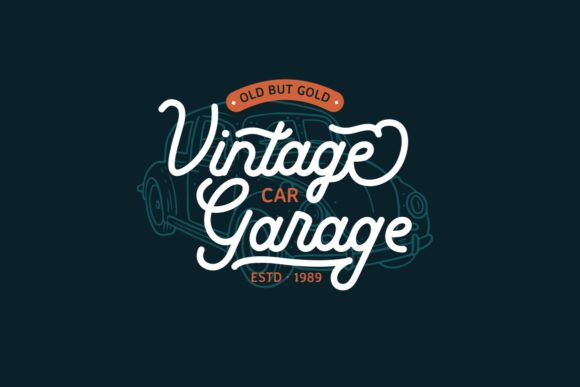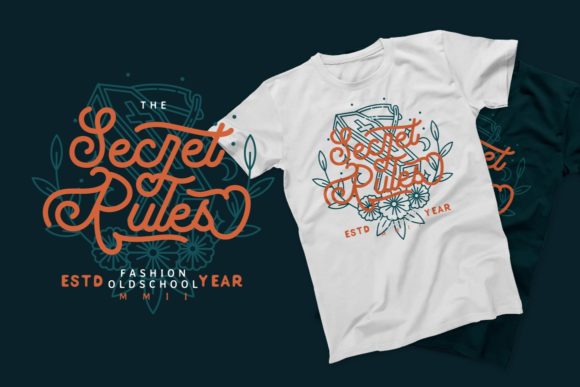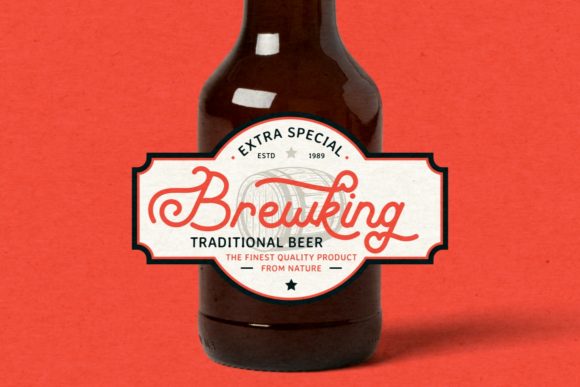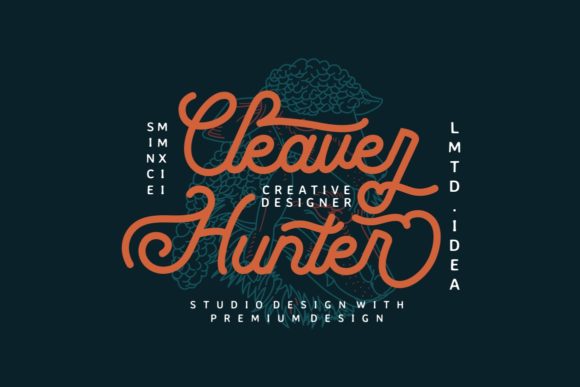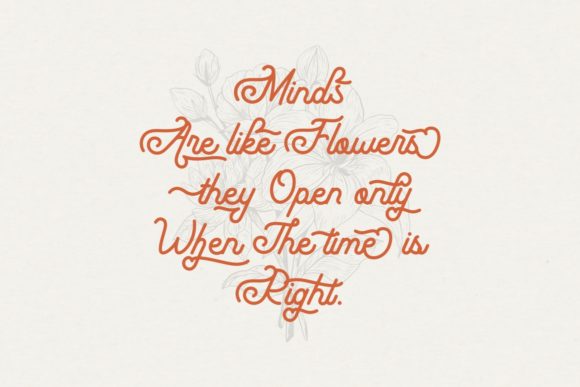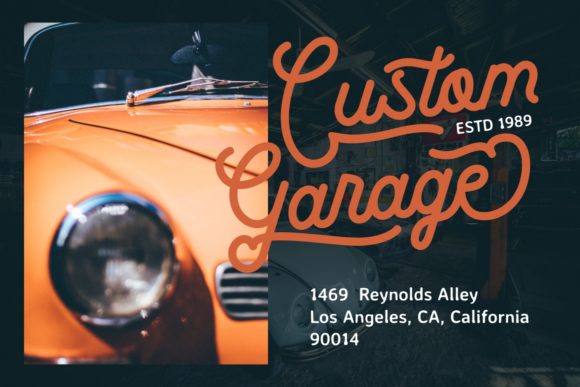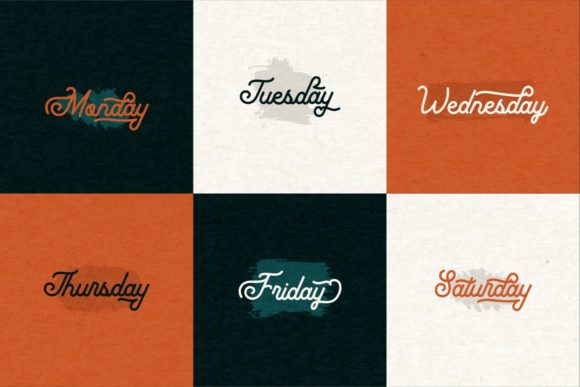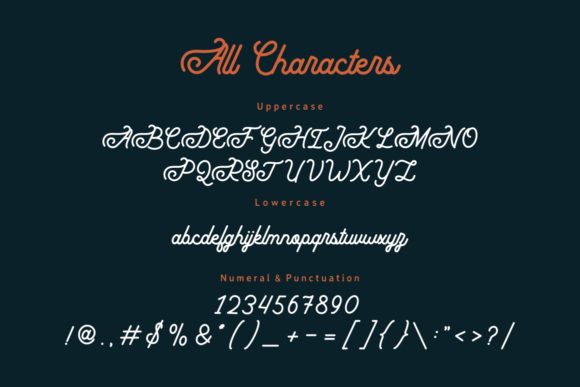
Grandmora Font
About Grandmora Font
Grandmora feels playfully nostalgic and delivers an incredible vintage aesthetic. Use it to add that special retro touch to any design idea you can think of! This masterfully designed handwritten font is a true must-have.